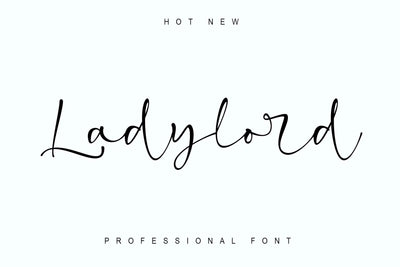
Ladylord
Ladylord is a beautiful professional handwritten font that exudes elegance and class which looks stunning. It will add a luxury spark to any design project! This font is PUA encoded which means you can access all of the amazing glyphs and ligatures with ease!